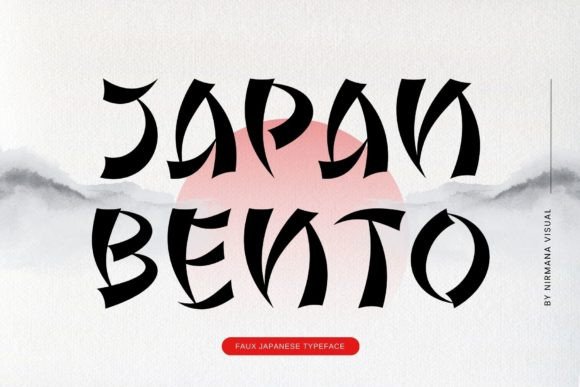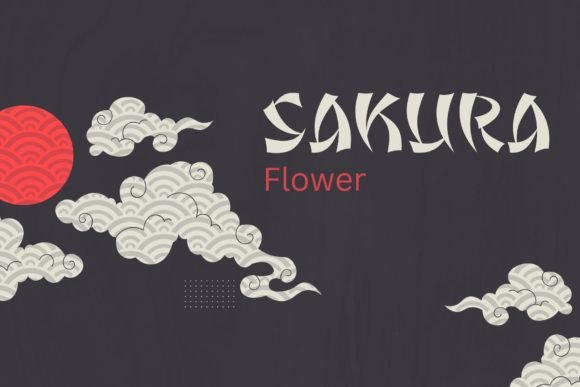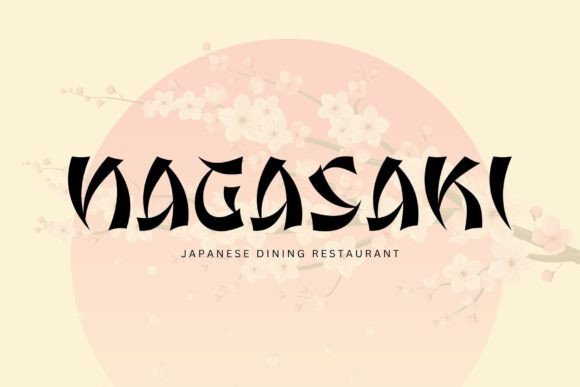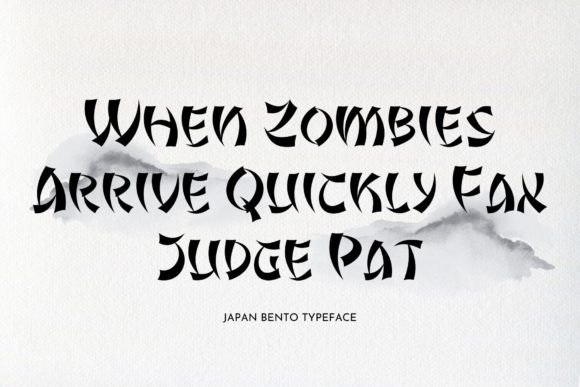
Japan Bento Font
About the Japan Bento Font
Step up your design game with Japan Bento Font, a font that exudes confidence and style. Japan Bento is a balanced, eye-catching, and modern display font. Japan Bento offers beautiful typographic harmony for a diversity of design projects, including logos & branding, social media posts, advertisements & product designs.
Japan Bento’s strong, yet friendly geometry makes it ideal for headlines, logos, and short-form text in branding materials and social media. It also works well on packaging where its clear readability at larger sizes is advantageous. However, avoid using it for body text or long paragraphs; its unique forms are less legible at smaller sizes.
Its modern, slightly playful personality pairs well with clean sans-serif fonts like Montserrat or Lato for a balanced contrast, or with a more playful script font like Pacifico for a bolder, friendlier feel. Alternatively, a classic serif like Playfair Display can add a touch of elegance and sophistication.
The font exudes a modern, approachable boldness—perfect for brands aiming for a youthful yet sophisticated image. Consider it for projects needing a unique visual identity that is both memorable and accessible.
Japan Bento Font Usage Examples
Japan Bento Font Example